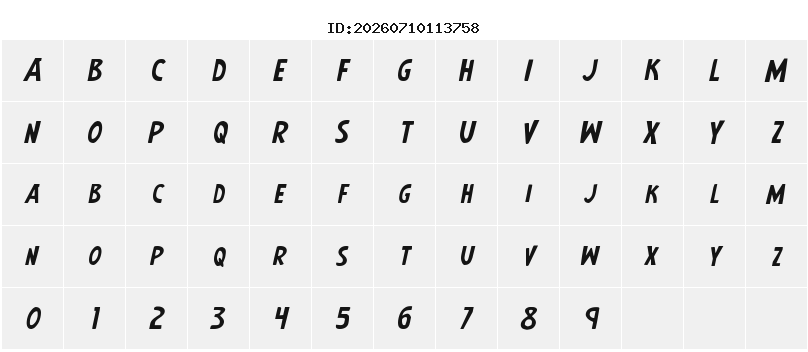
Earth's Mightiest Expanded Italic Preview
• Font Name: Earth's Mightiest Expanded Italic
• Font Style: Expanded Italic
• Full Font Name: Earth's Mightiest Expanded Italic
About Earth's Mightiest Expanded Italic.ttf
Earth's Mightiest Expanded Italic.ttf is a modern, elegant sans-serif font designed for ultimate readability and visual harmony. Perfect for branding, headlines, web design, and print materials.